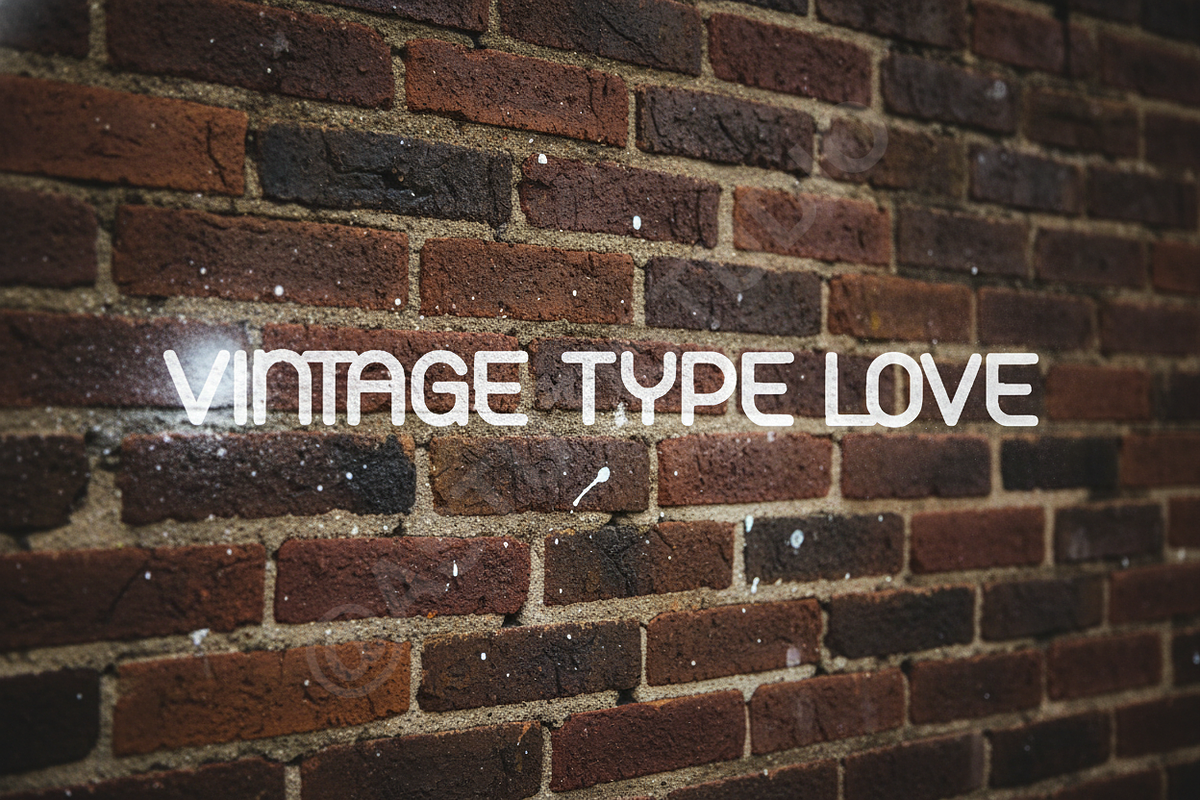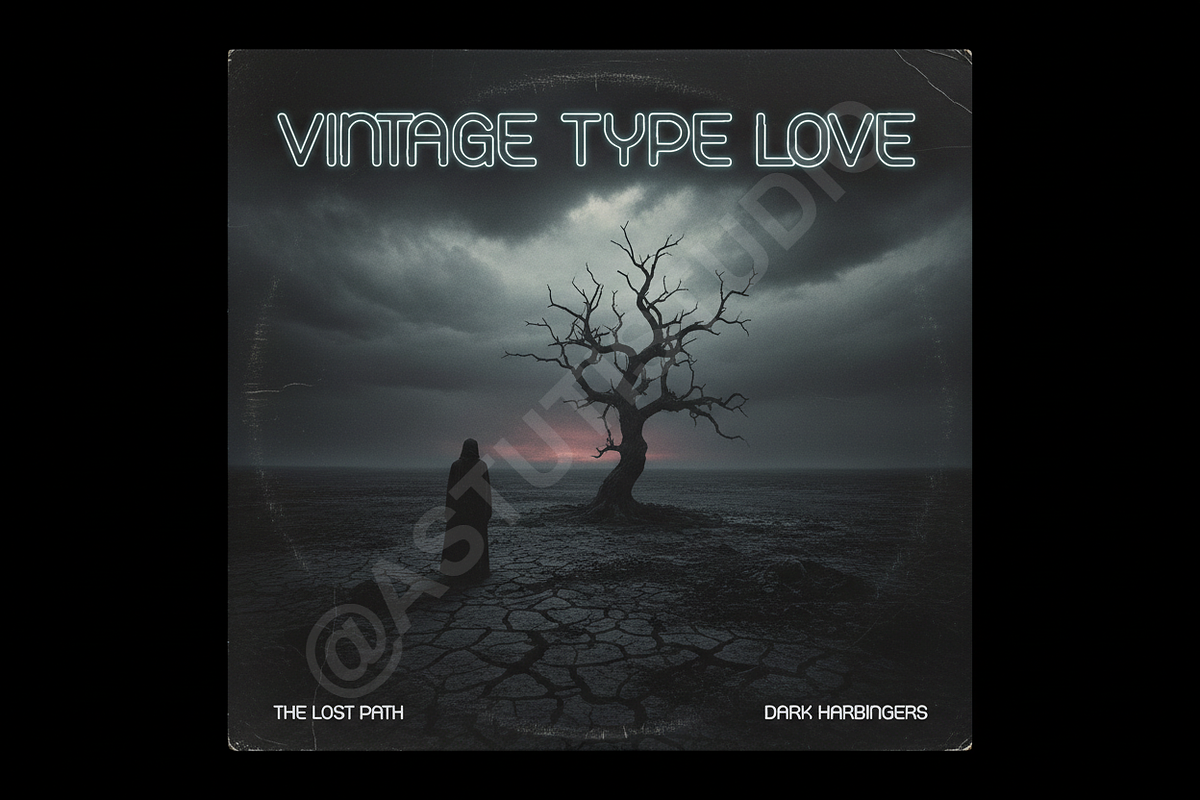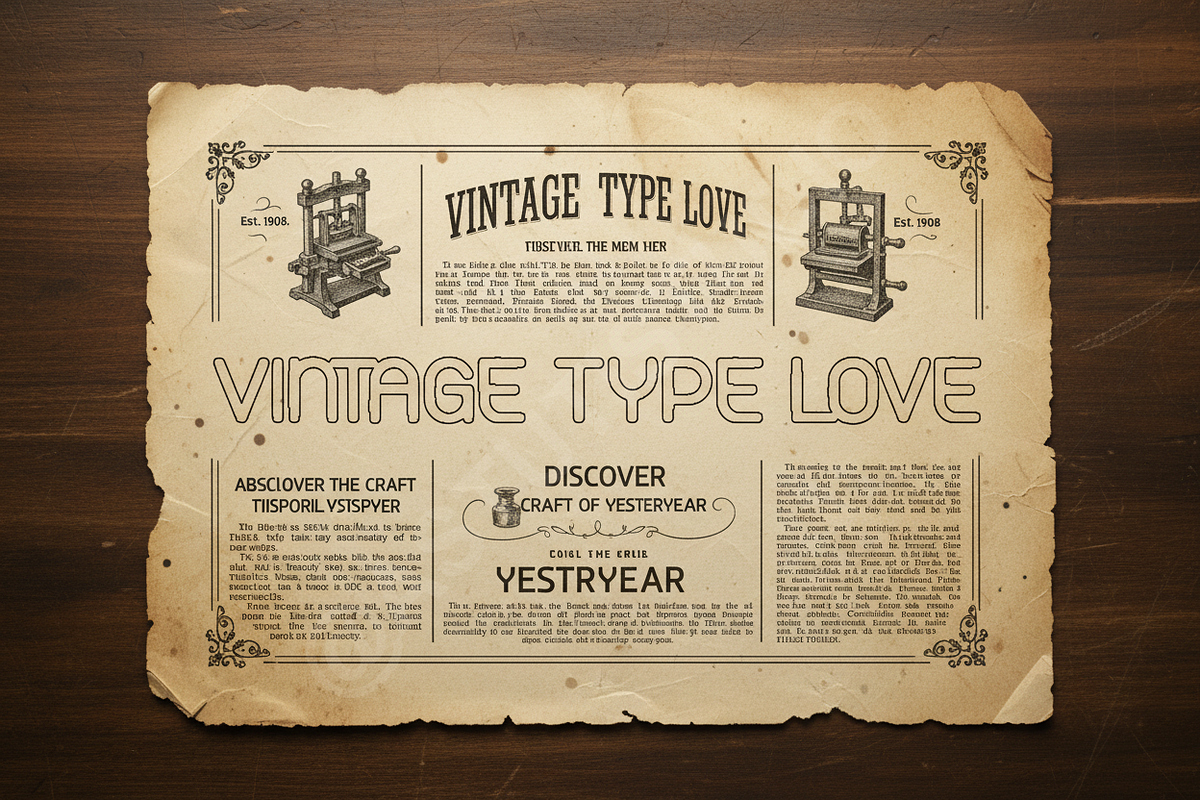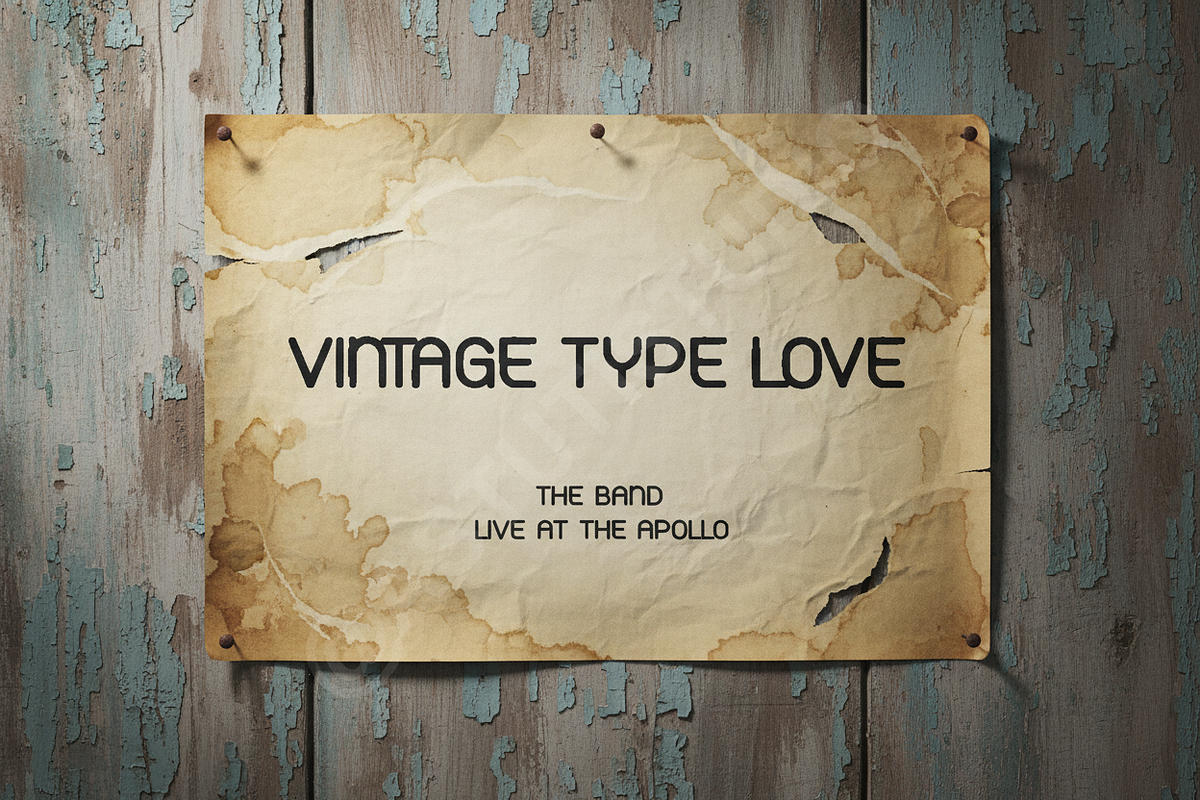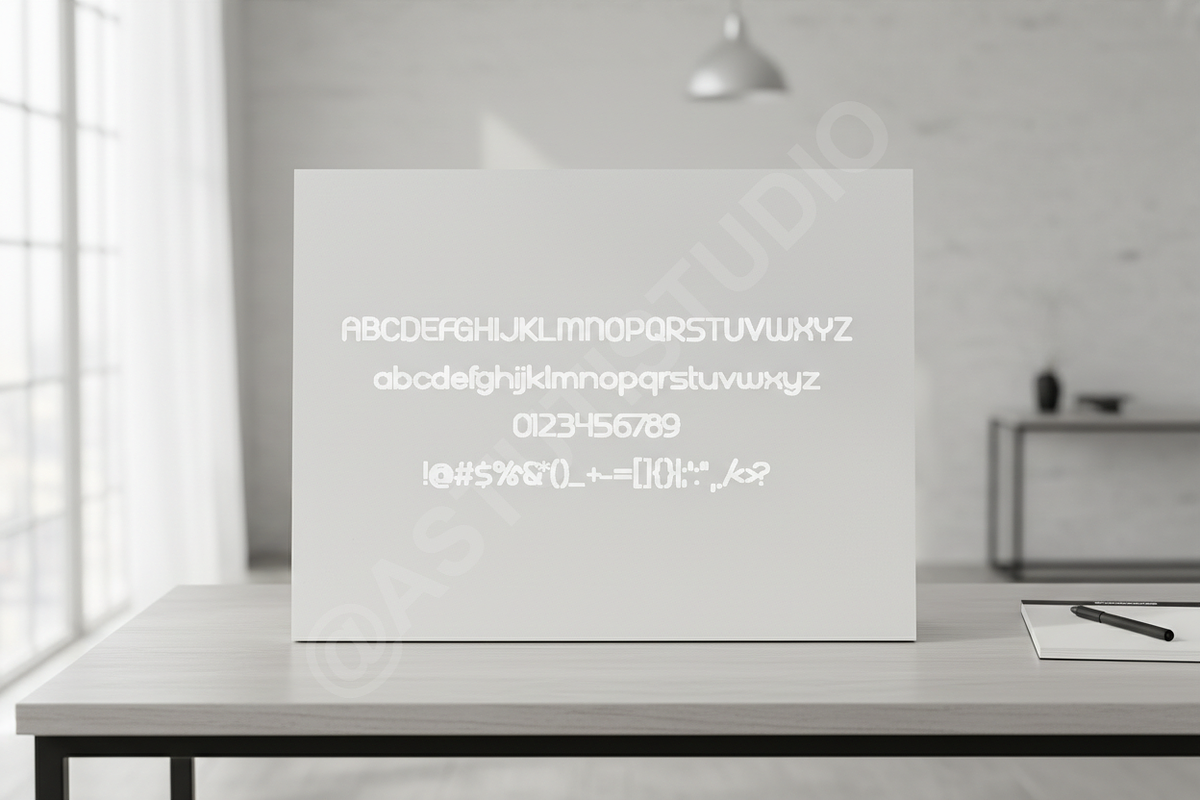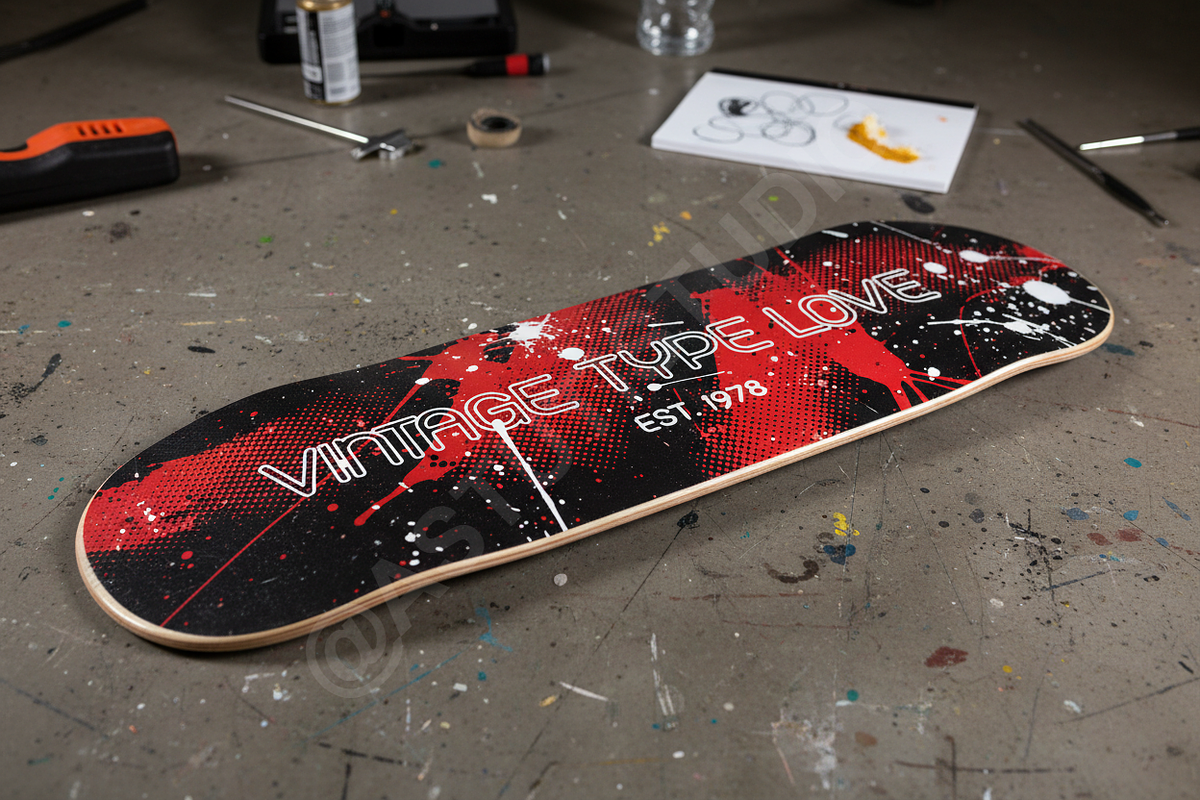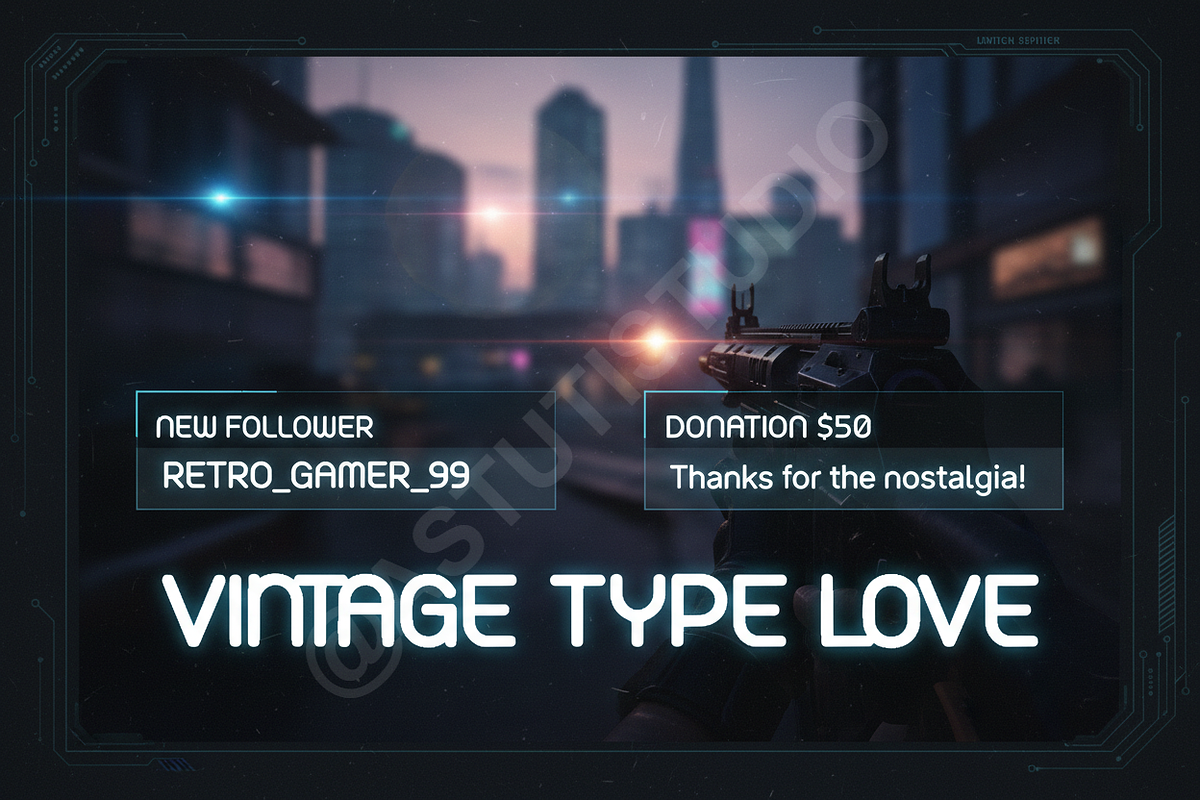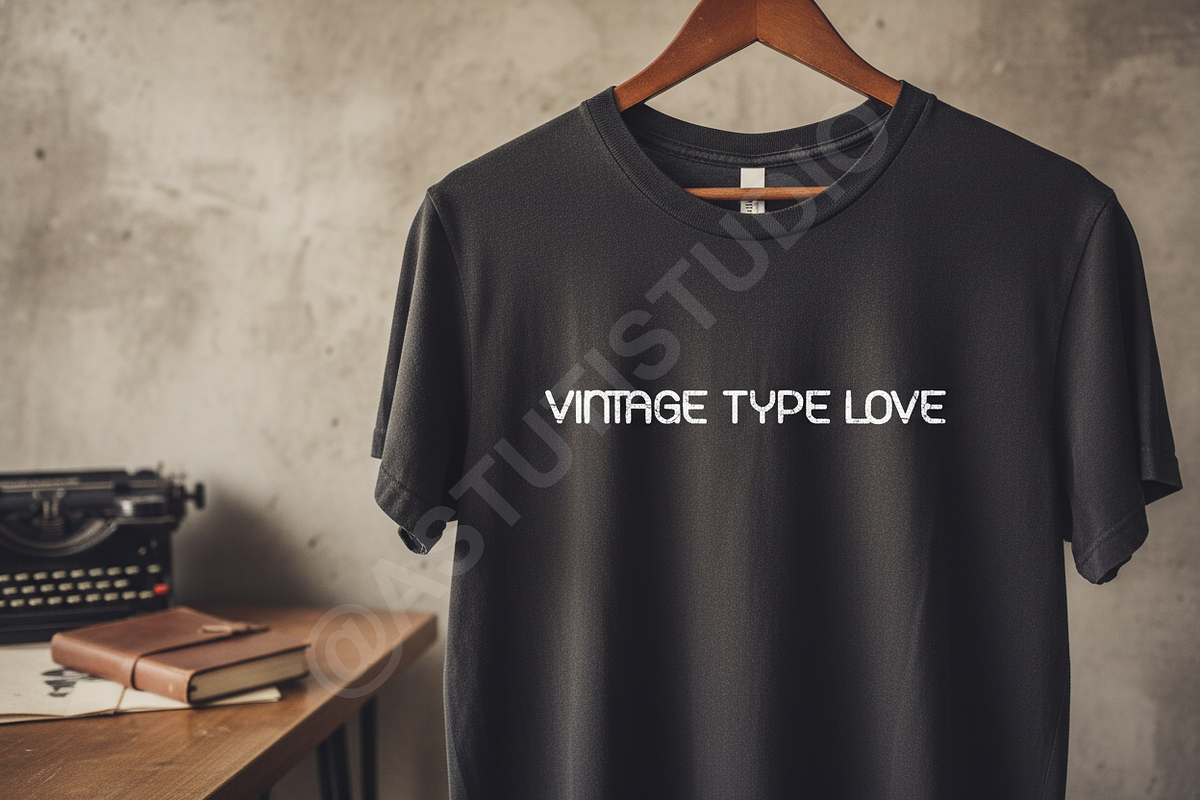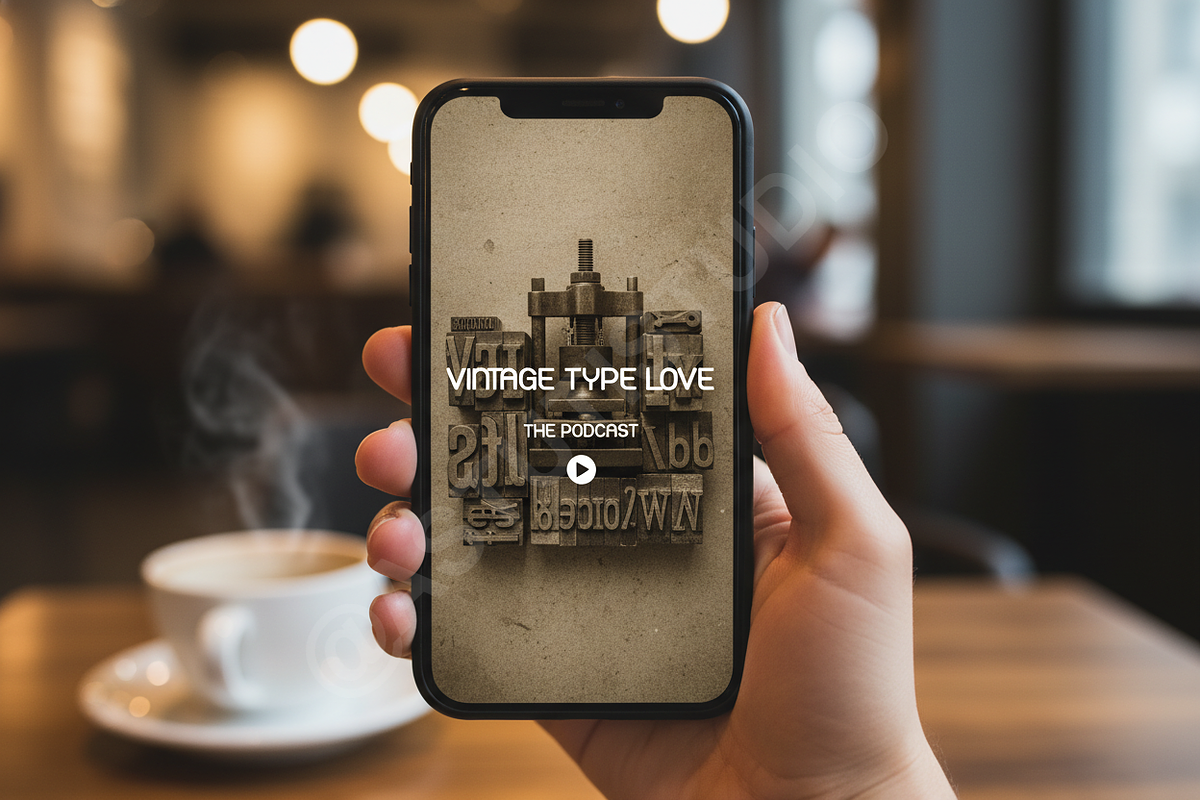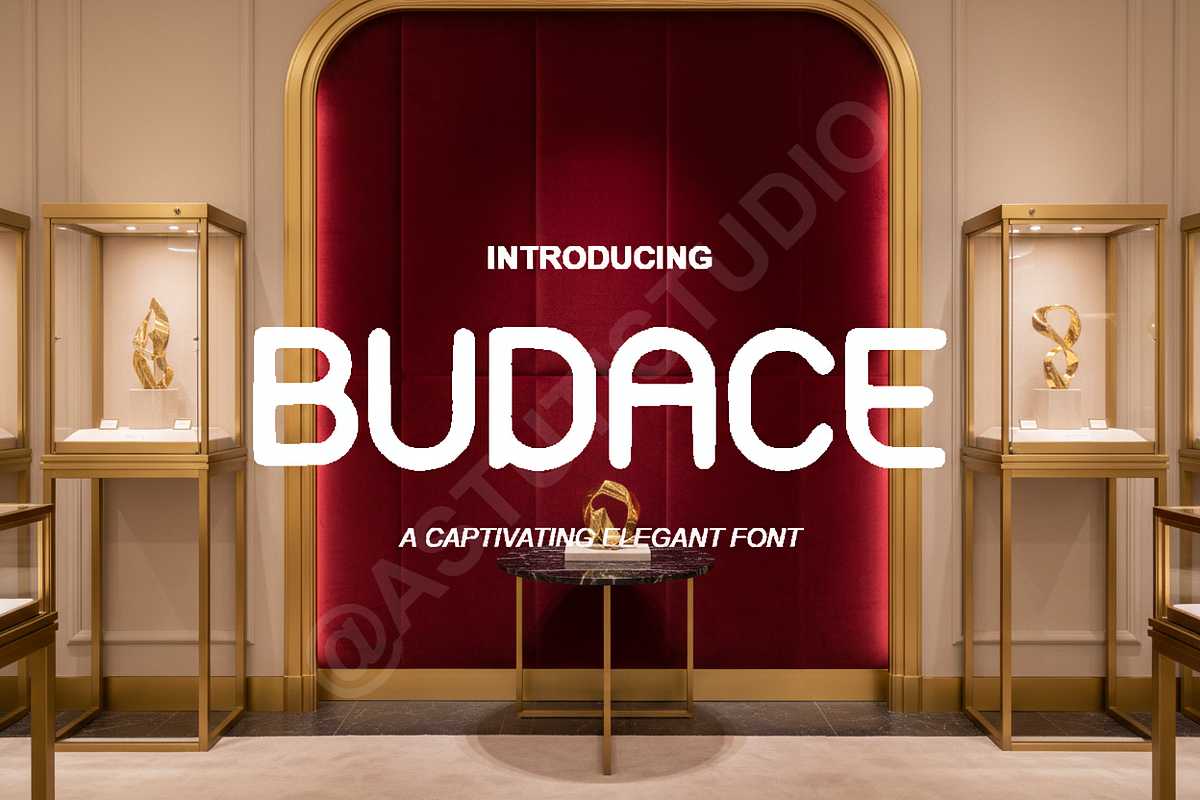
Budace - The Premium High-Contrast M
Budace is a meticulously crafted high-contrast modern serif typeface designed for the discerning creative professional. Its elegant structure features dramatically refined thin strokes juxtaposed against confident thick lines, delivering an unmistakable visual presence. Ideal for projects demanding sophistication and prestige, Budace is the definitive statement font for luxury markets, high fashion, and elegant editorial layouts.
- Exquisite High-Contrast Design: Optimized for display sizes, ensuring maximum impact and readability in premium contexts.
- OpenType Features: Includes a comprehensive set of stylish ligatures and essential stylistic alternates to customize your typography.
- Multilingual Support: Comprehensive character set covering standard Latin languages.
- Versatile Application: Perfectly suited for luxury branding, opulent packaging, high-fashion magazine spreads, impactful social media campaigns, and elegant logo design.